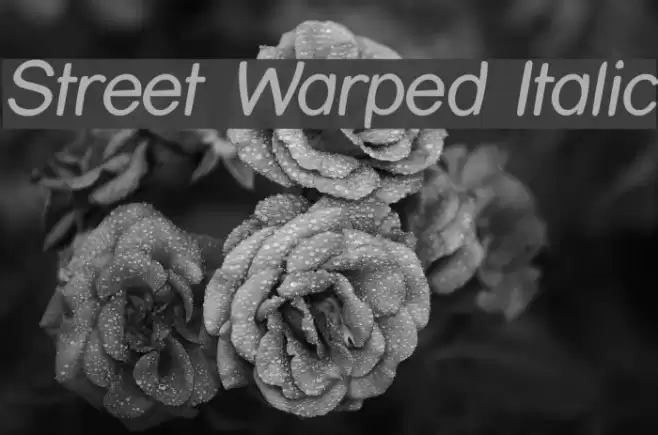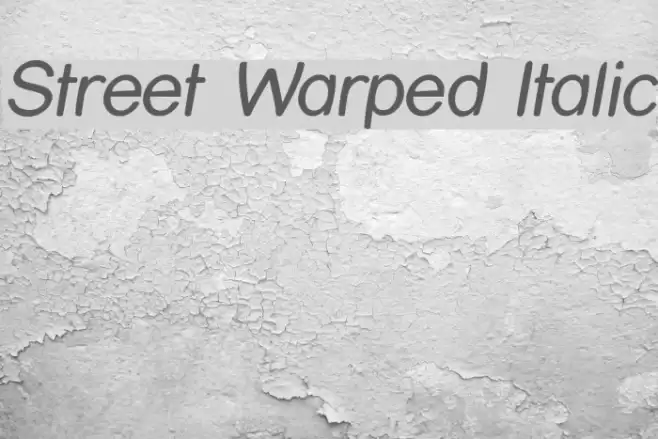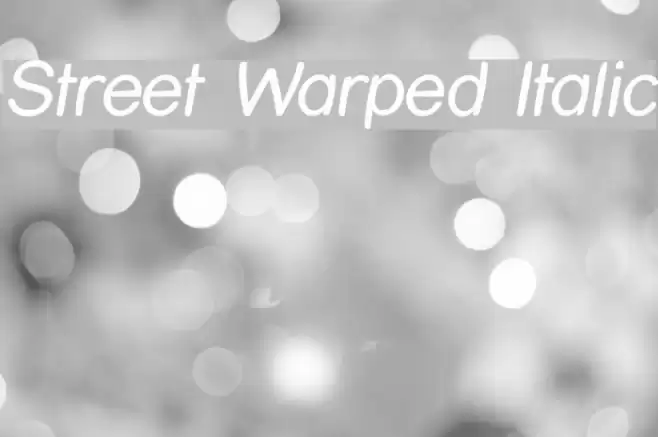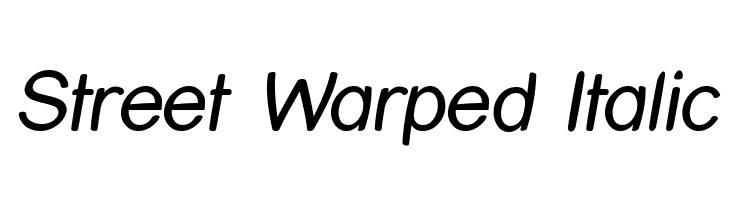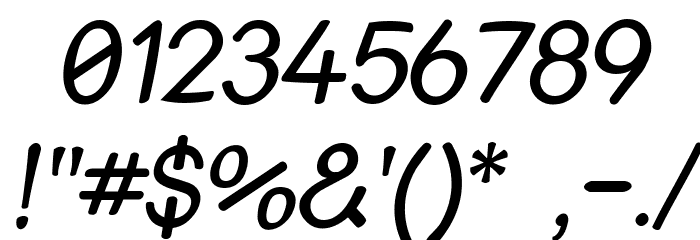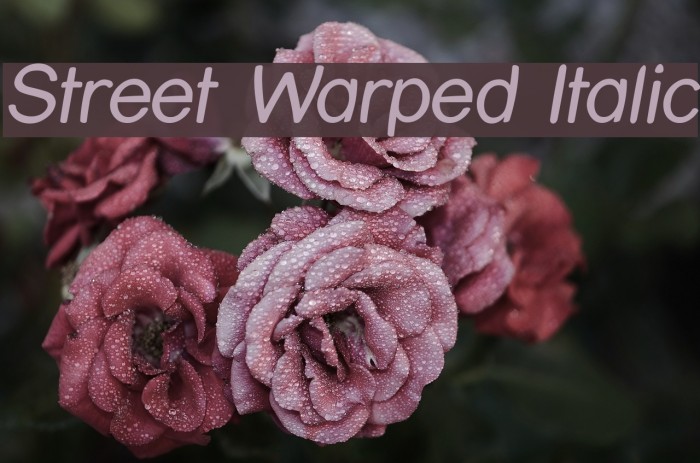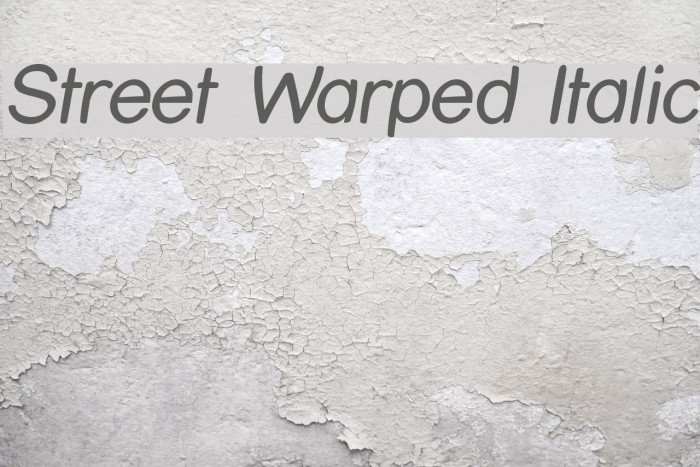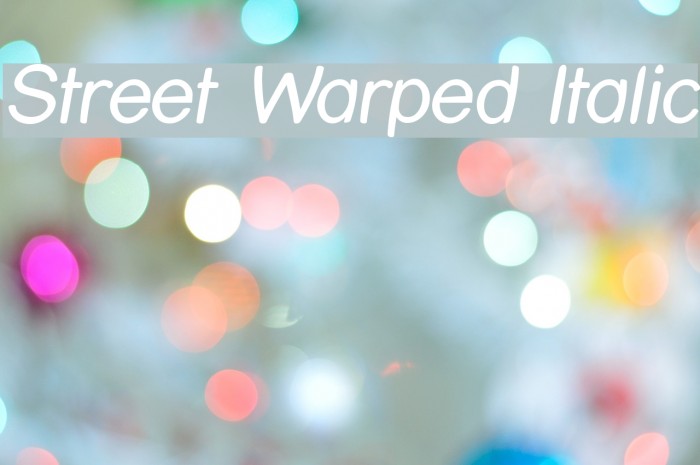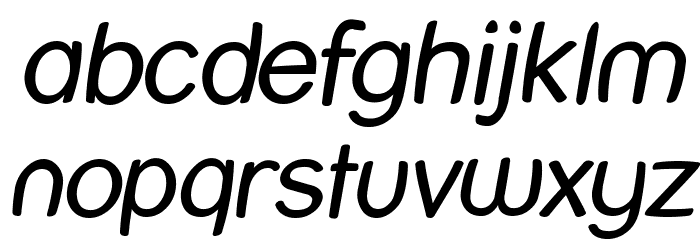
Street Warped Italic
This font features a modern, italicized style with smooth, rounded edges and a slightly condensed form. The characters are uniformly slanted, giving a dynamic and fluid appearance. The uppercase and lowercase letters maintain a consistent stroke width, contributing to a clean and cohesive look. The numbers and special characters are designed to complement the overall style, ensuring readability and aesthetic appeal. The font's design is versatile, suitable for various applications where a contemporary and stylish impression is desired.
A modern, italicized font with smooth, rounded edges and a dynamic appearance.
- Proposed Projects: Ideal for branding, advertising, digital media, and editorial design where a modern and stylish look is needed.
- Width: Condensed
- Use Case: Headlines, Logos, Digital Media